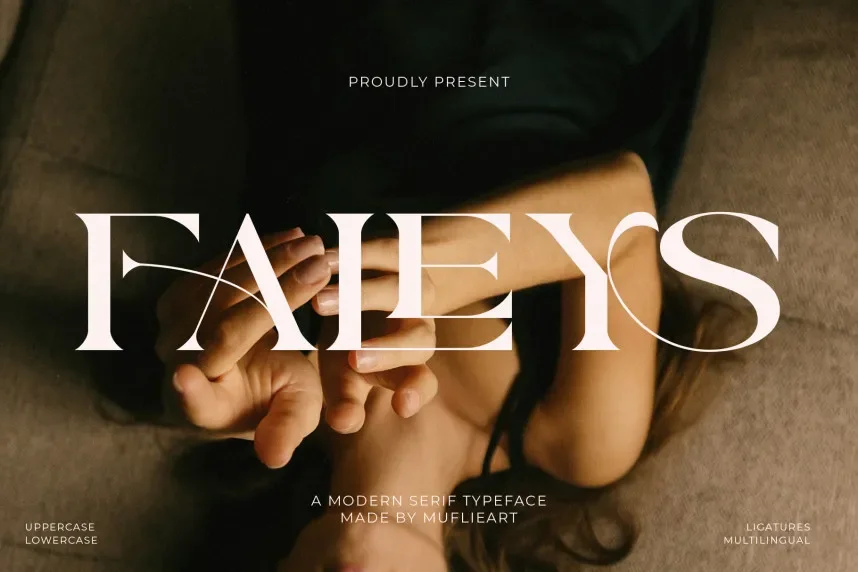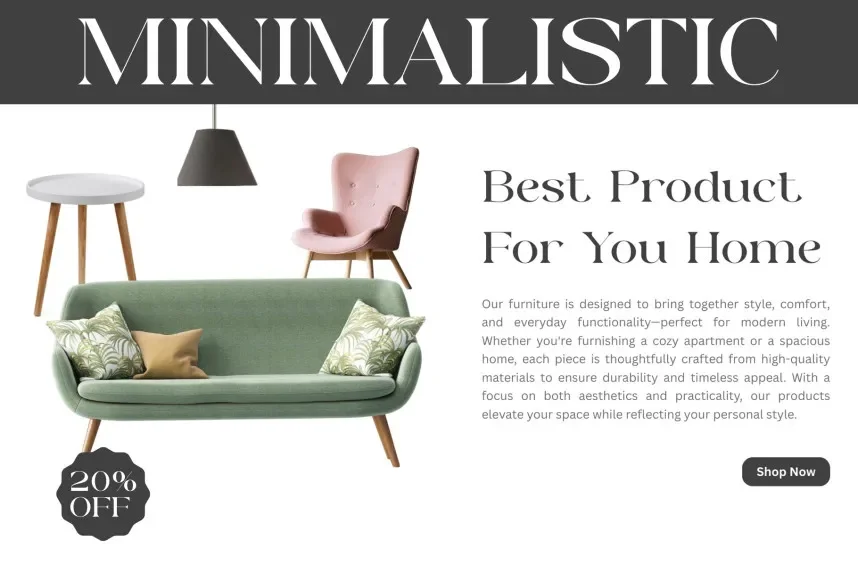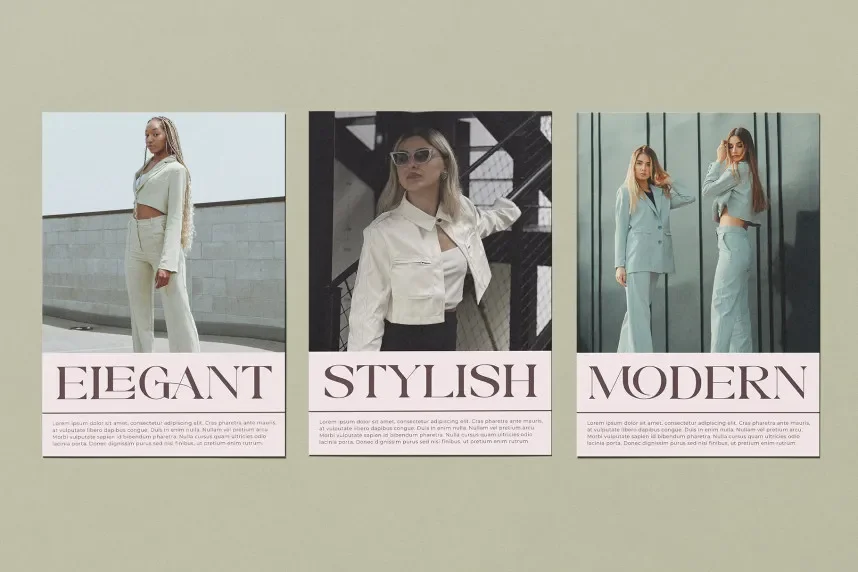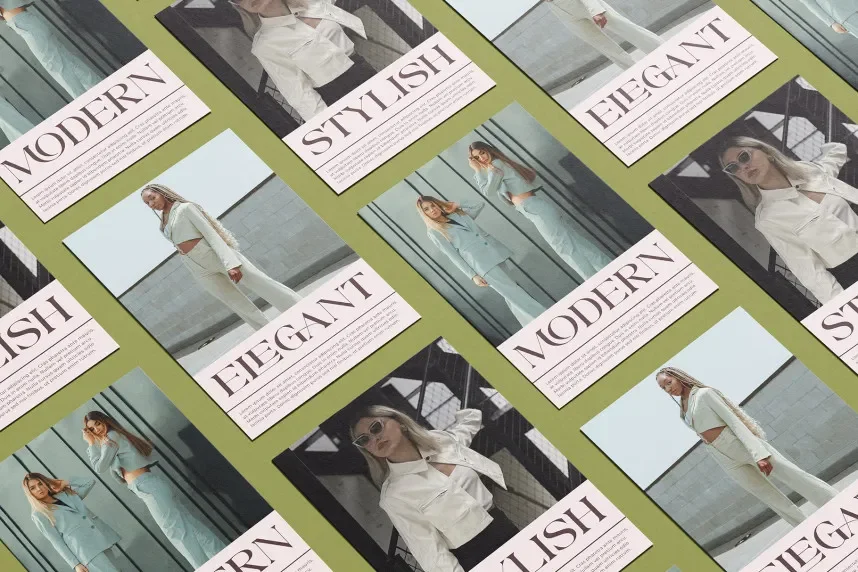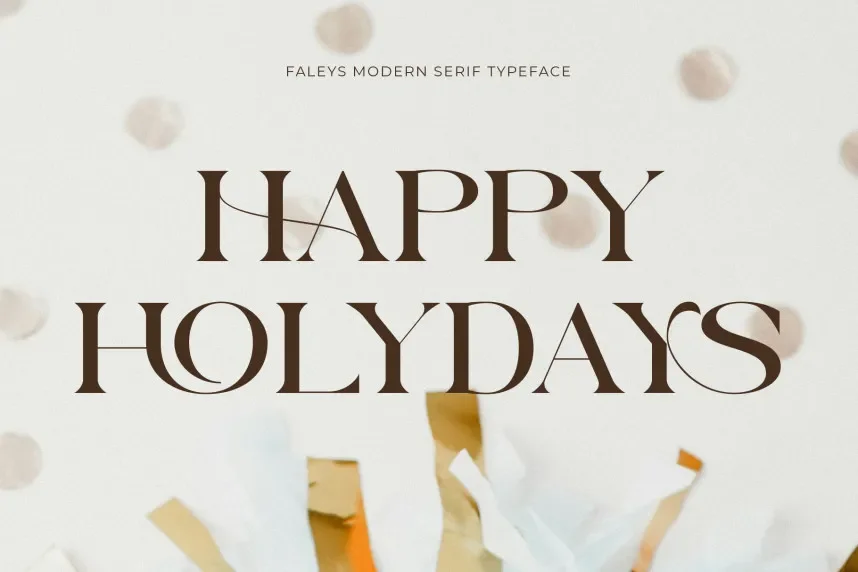
Faleys Font helps designers add decorative detail to branding without overwhelming layouts. Many decorative fonts reduce clarity when overused.
Faleys is a decorative display font with stylized strokes, clear contours, and consistent spacing. It works best in short text where character shape matters.